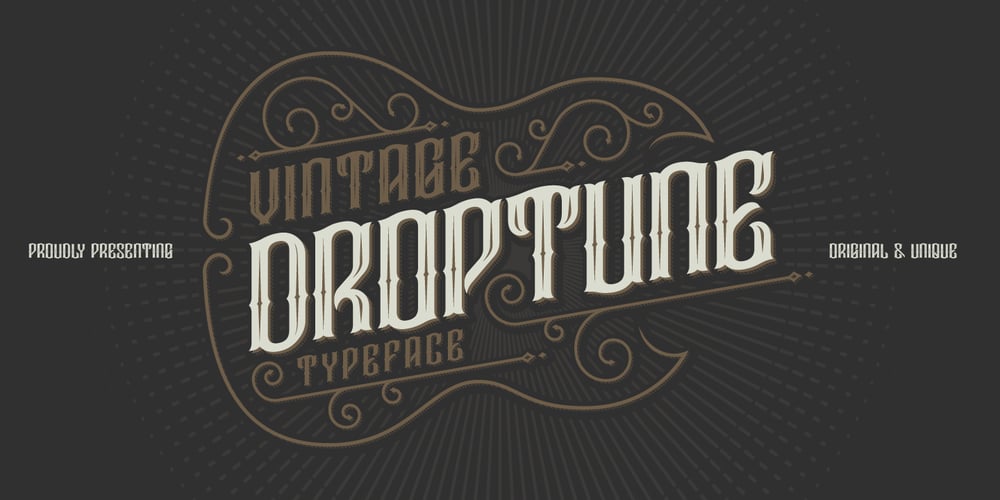
Droptune Font Family was designed by Gleb Guralnyk and published by Gleb Guralnyk. Droptune contains 1 styles and family package options. Introducing my new font named “Droptune”. Dark riffs, strong rhythm, low frequencies – it’s all about heavy music, and, I hope, about this typeface 🙂